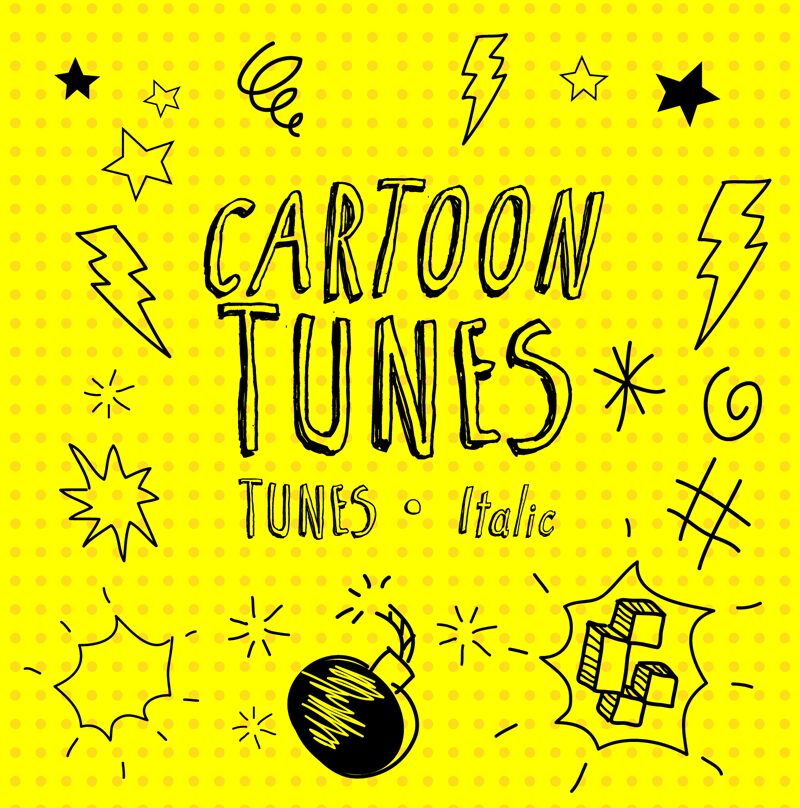
Cartoon Tunes Regular
Cartoon Tunes font, by Galdino Otten Fonts, cleverly combines casual style and quirky character to produce a truly appealing appearance. Its uneven lines and natural hand-drawn appearance add even more charm to the letter structure. Another lovable trait is its slightly curved lines which portray energy and joy effortlessly.
This free display font will look mesmerizing on wishing cards, book covers for kids, stickers, or t-shirt designs. It can also be useful for posters, billboards, food packaging designs, CDs covers, branding projects like logos and labels among others.